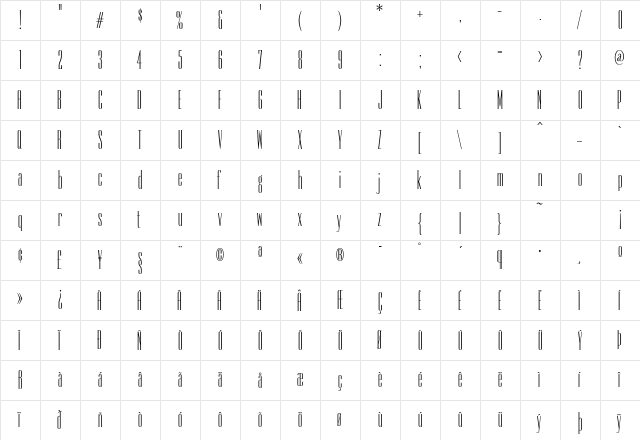
Bureau Empire FB Regular
Design Context for Bureau Empire FB Typeface
Bureau Empire FB is a composed and adaptable typeface that performs quietly and consistently across a wide range of design contexts.